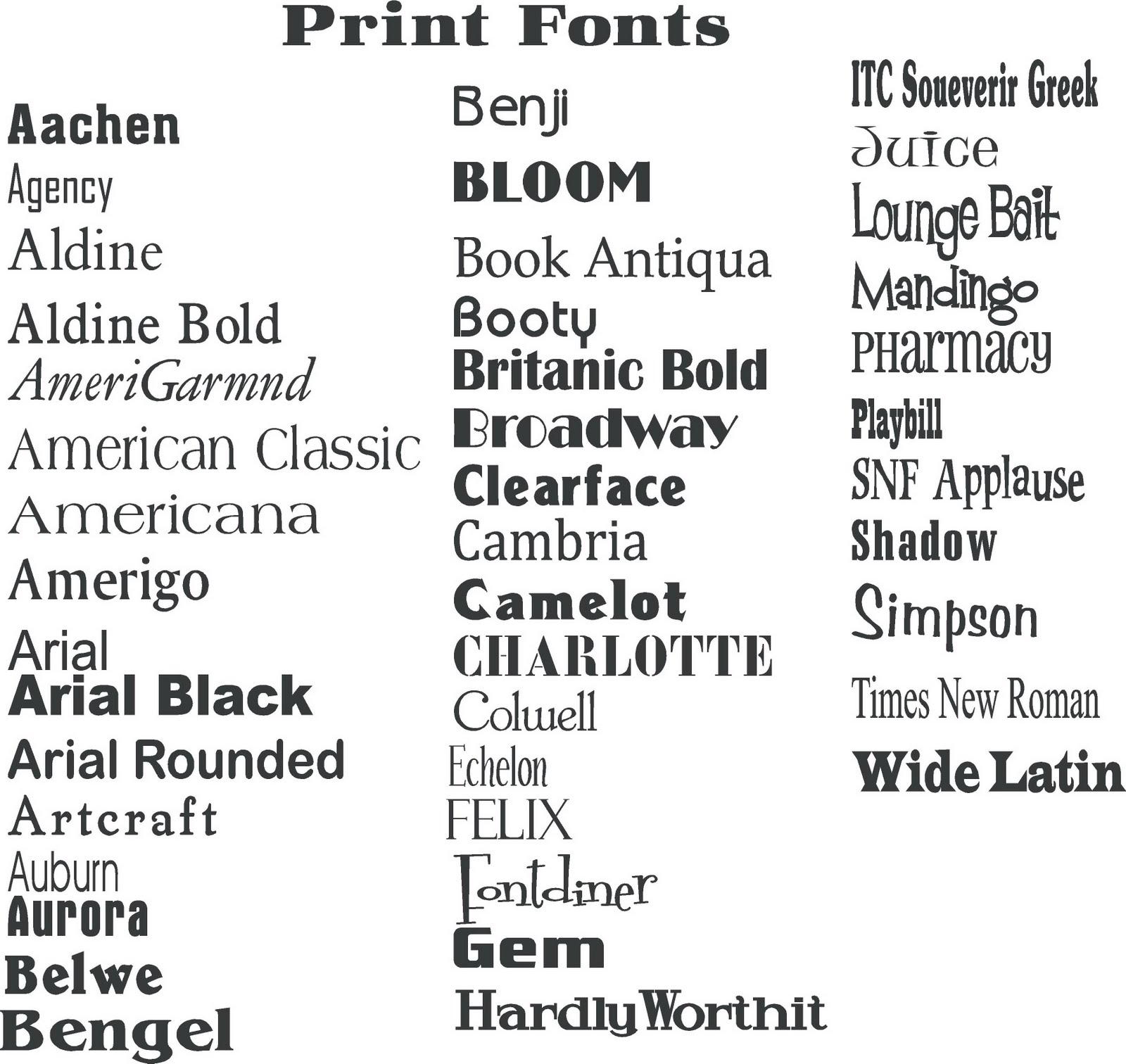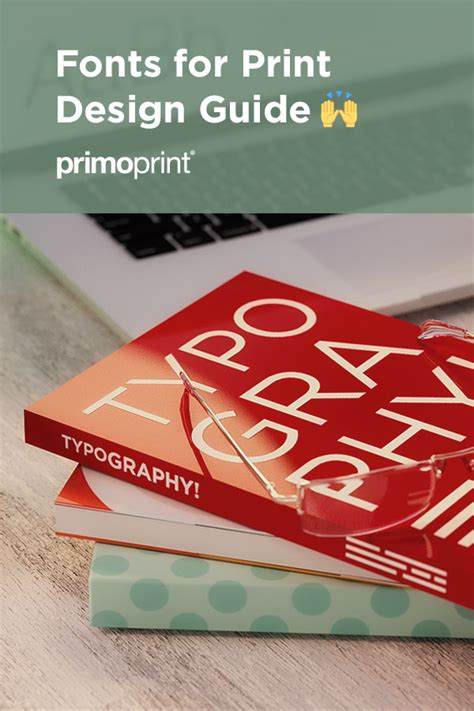
Best Font For Print
Best Font For Print - This graceful font was developed in france in the 16th century and has a classical feel. This minimalist typeface is a great choice for. Myfonts helvetica is a timeless classic font family featuring clean and. Web 30+ best print fonts (top fonts for print) 1. Magdelin is a gothic sans serif typeface that consists of 40 font styles. Crimson pro is a serif font that is ideal for long blocks of text. Web 12 best readable fonts for web and print. Web serif fonts garamond. This elegant yet sturdy font was. Web best fonts for print books crimson pro.
This elegant yet sturdy font was. Myfonts helvetica is a timeless classic font family featuring clean and. Web 12 best readable fonts for web and print. It has a classical feel to it, making it. This graceful font was developed in france in the 16th century and has a classical feel. Magdelin is a gothic sans serif typeface that consists of 40 font styles. Web best fonts for print books crimson pro. Web serif fonts garamond. Crimson pro is a serif font that is ideal for long blocks of text. This minimalist typeface is a great choice for.
This graceful font was developed in france in the 16th century and has a classical feel. Crimson pro is a serif font that is ideal for long blocks of text. Web serif fonts garamond. It has a classical feel to it, making it. This elegant yet sturdy font was. Web best fonts for print books crimson pro. This minimalist typeface is a great choice for. Magdelin is a gothic sans serif typeface that consists of 40 font styles. Myfonts helvetica is a timeless classic font family featuring clean and. Web 12 best readable fonts for web and print.
This graceful font was developed in france in the 16th century and has a classical feel. Web 30+ best print fonts (top fonts for print) 1. This minimalist typeface is a great choice for. Crimson pro is a serif font that is ideal for long blocks of text. Web serif fonts garamond.
This minimalist typeface is a great choice for. Magdelin is a gothic sans serif typeface that consists of 40 font styles. Web serif fonts garamond. Web 30+ best print fonts (top fonts for print) 1. This graceful font was developed in france in the 16th century and has a classical feel.
Web 12 best readable fonts for web and print. Web serif fonts garamond. Web best fonts for print books crimson pro. Myfonts helvetica is a timeless classic font family featuring clean and. This elegant yet sturdy font was.
Web 30+ best print fonts (top fonts for print) 1. It has a classical feel to it, making it. Myfonts helvetica is a timeless classic font family featuring clean and. Magdelin is a gothic sans serif typeface that consists of 40 font styles. Web best fonts for print books crimson pro.
Web 30+ best print fonts (top fonts for print) 1. Web serif fonts garamond. Magdelin is a gothic sans serif typeface that consists of 40 font styles. Web best fonts for print books crimson pro. This graceful font was developed in france in the 16th century and has a classical feel.
Web best fonts for print books crimson pro. This elegant yet sturdy font was. Web 12 best readable fonts for web and print. Magdelin is a gothic sans serif typeface that consists of 40 font styles. This graceful font was developed in france in the 16th century and has a classical feel.
Web 12 best readable fonts for web and print. This minimalist typeface is a great choice for. It has a classical feel to it, making it. This elegant yet sturdy font was. Magdelin is a gothic sans serif typeface that consists of 40 font styles.
Web 12 best readable fonts for web and print. Web 30+ best print fonts (top fonts for print) 1. This graceful font was developed in france in the 16th century and has a classical feel. Myfonts helvetica is a timeless classic font family featuring clean and. It has a classical feel to it, making it.
Magdelin is a gothic sans serif typeface that consists of 40 font styles. This graceful font was developed in france in the 16th century and has a classical feel. Web 12 best readable fonts for web and print. Web serif fonts garamond. Crimson pro is a serif font that is ideal for long blocks of text.
Web best fonts for print books crimson pro. Myfonts helvetica is a timeless classic font family featuring clean and. This elegant yet sturdy font was. Web 30+ best print fonts (top fonts for print) 1. Web 12 best readable fonts for web and print.
This Graceful Font Was Developed In France In The 16Th Century And Has A Classical Feel.
Web 12 Best Readable Fonts For Web And Print.
This minimalist typeface is a great choice for. It has a classical feel to it, making it. Web best fonts for print books crimson pro. Myfonts helvetica is a timeless classic font family featuring clean and.